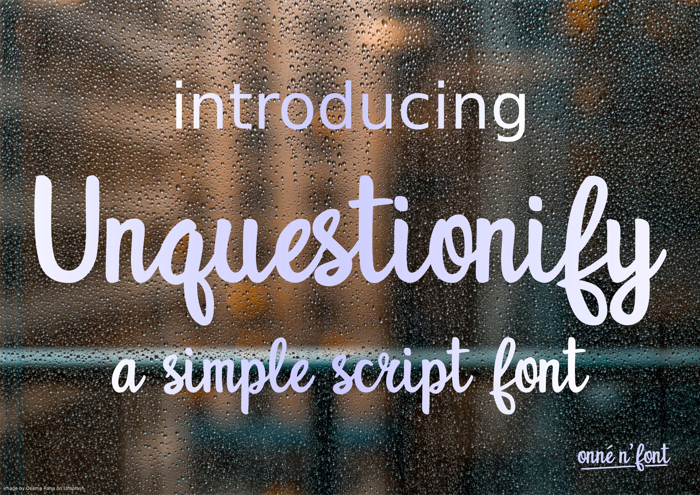
Unquestionify Font
the Unquestionify is a simple script font. It’s convenient to read in any long text, yet also suitable for many other designing needs.